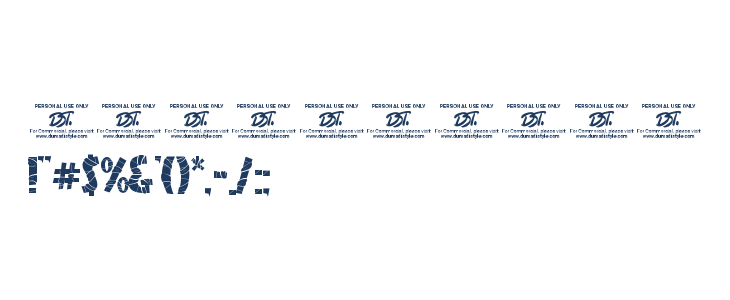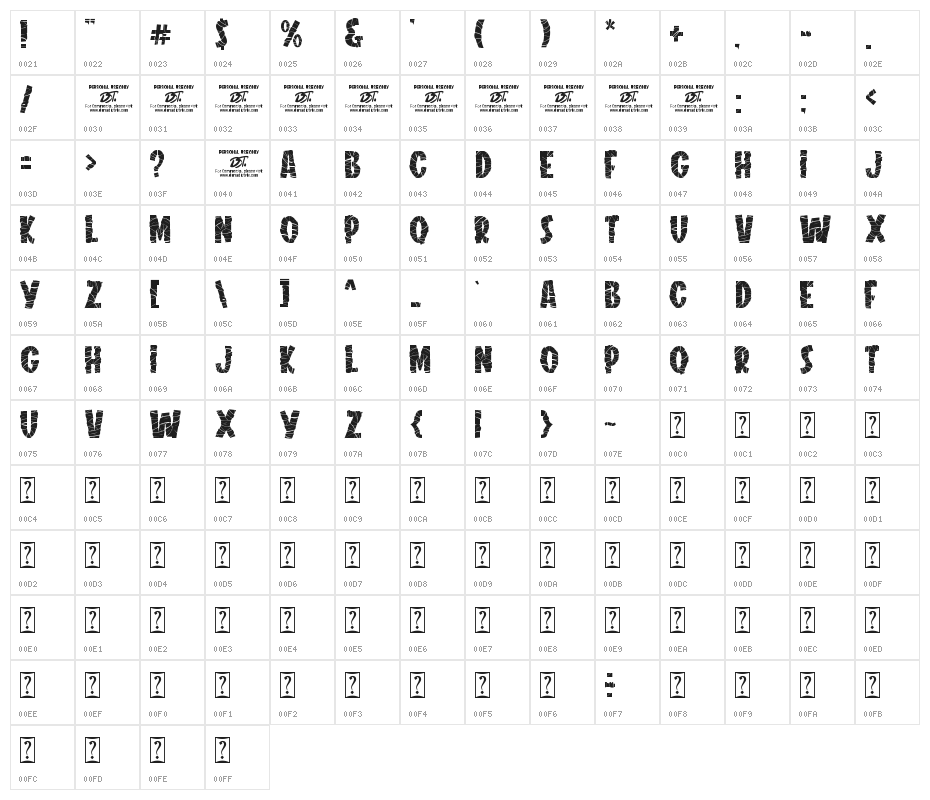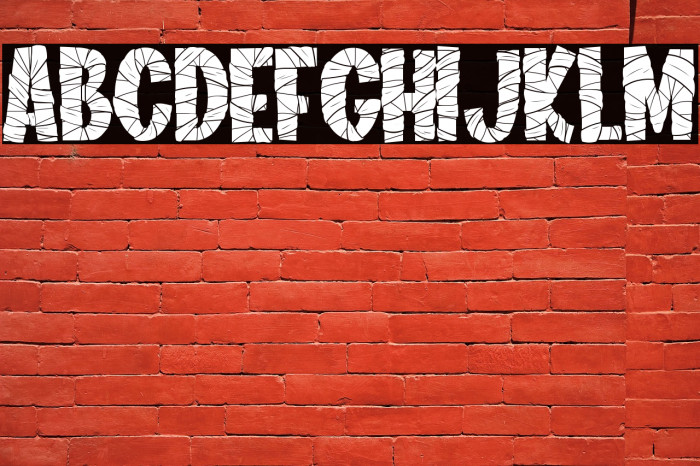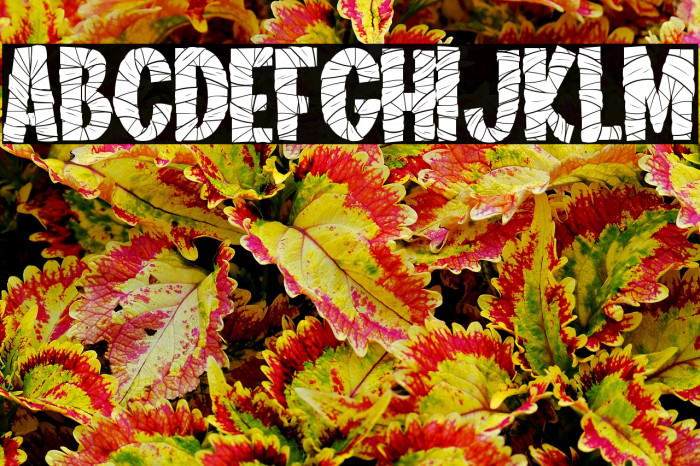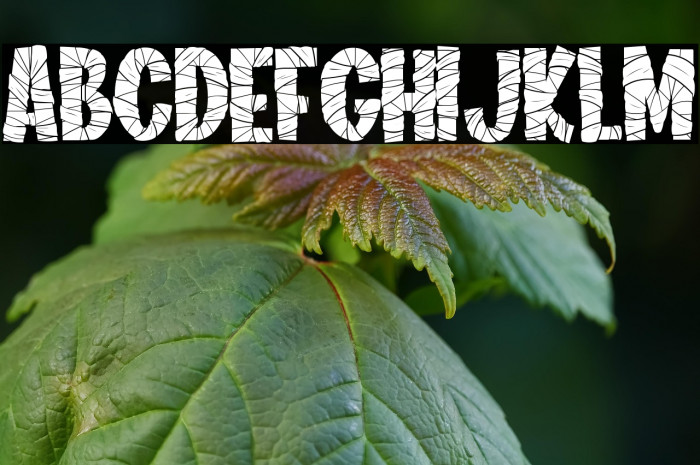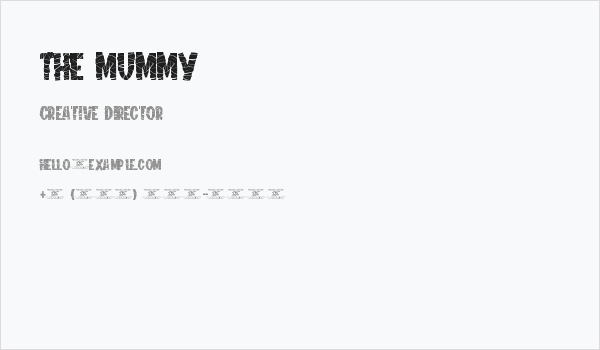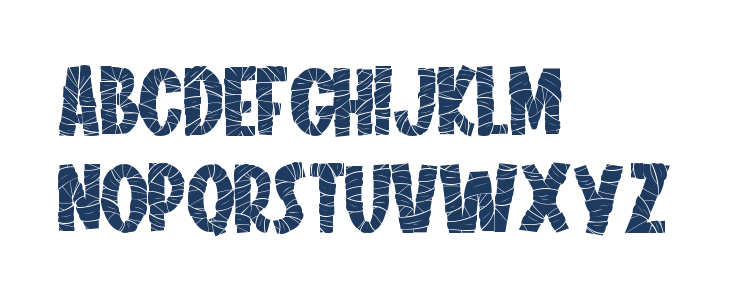
The Mummy Font
The Mummy Description
This font features a unique, textured design that resembles bandages or wrappings, giving it a distinctive and thematic appearance. The bold, blocky letters are filled with irregular, jagged lines that create a sense of depth and intrigue. Each character is crafted to maintain legibility while offering a visually striking effect, making it ideal for thematic projects. The uppercase and lowercase letters, along with numbers and special characters, all share this cohesive design, ensuring consistency across any text. The font's playful yet edgy style makes it suitable for creative projects that require a touch of mystery or adventure.
| Proposed Projects | Ideal for Halloween-themed designs, movie posters, adventure games, or any project requiring a mysterious or ancient aesthetic. |